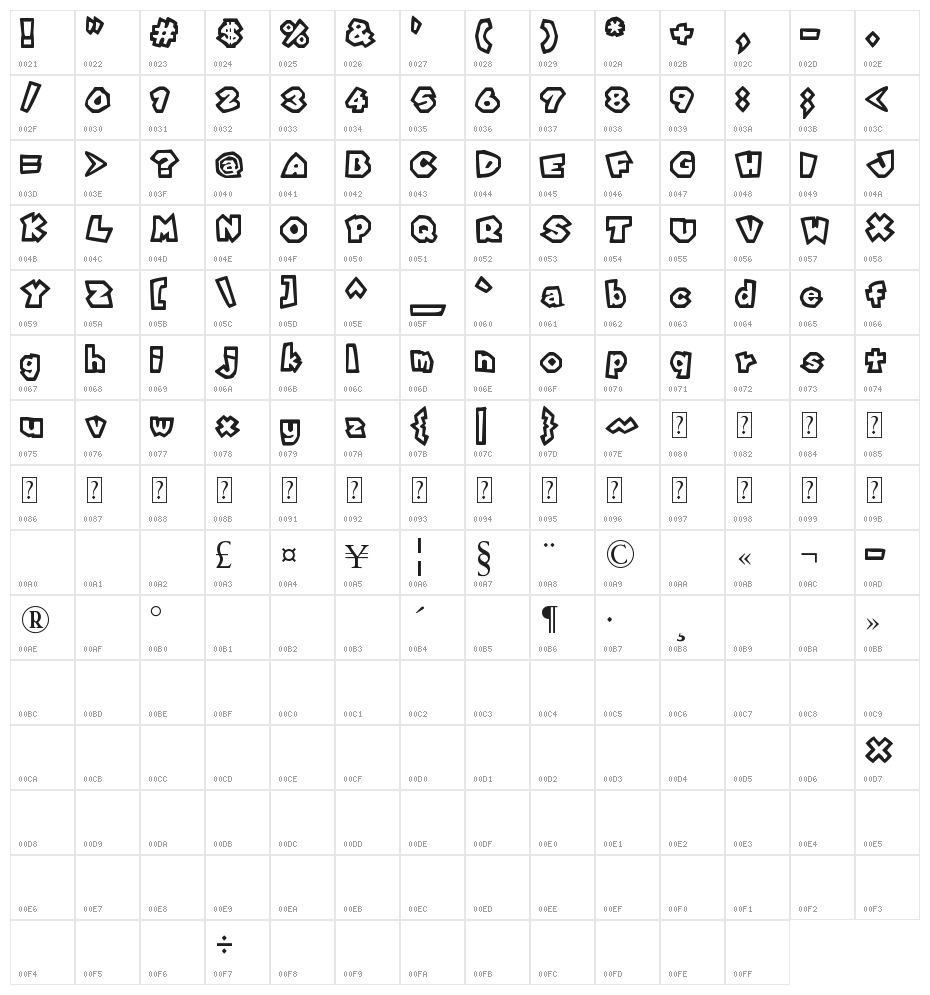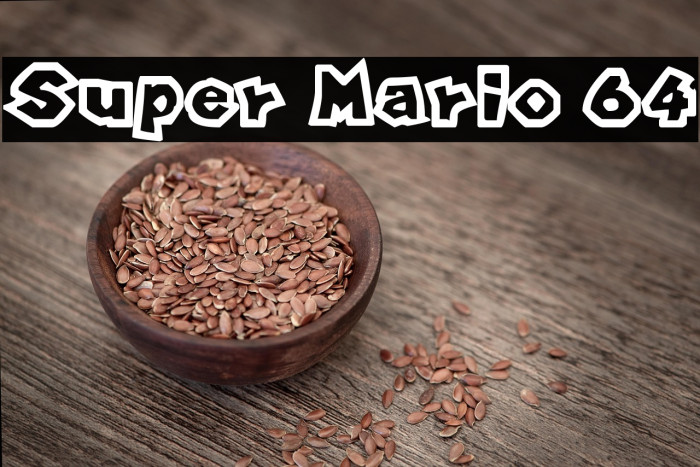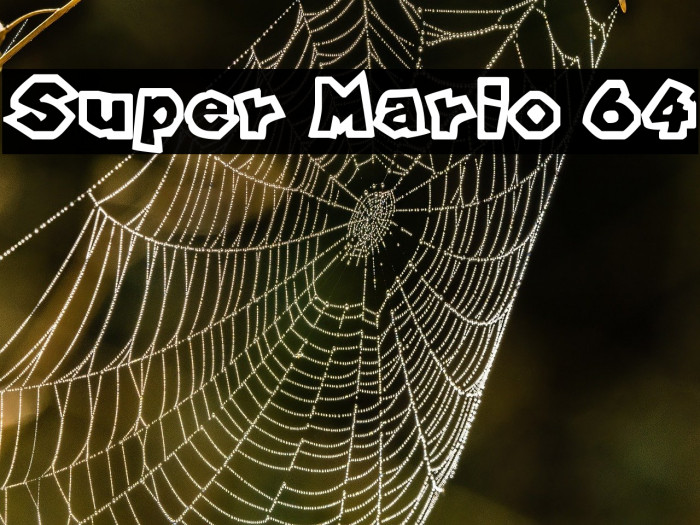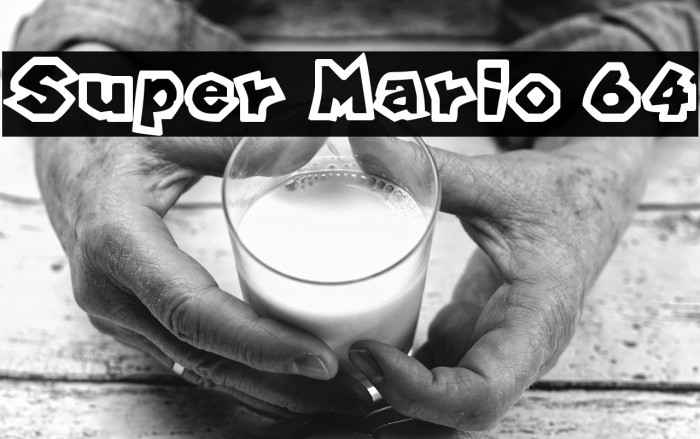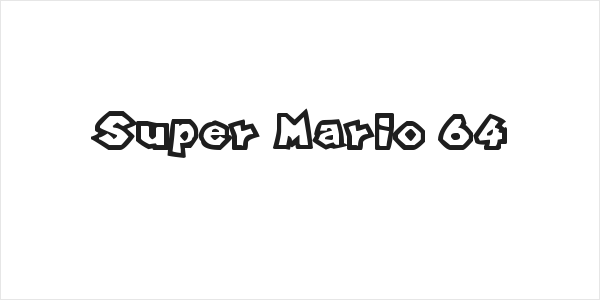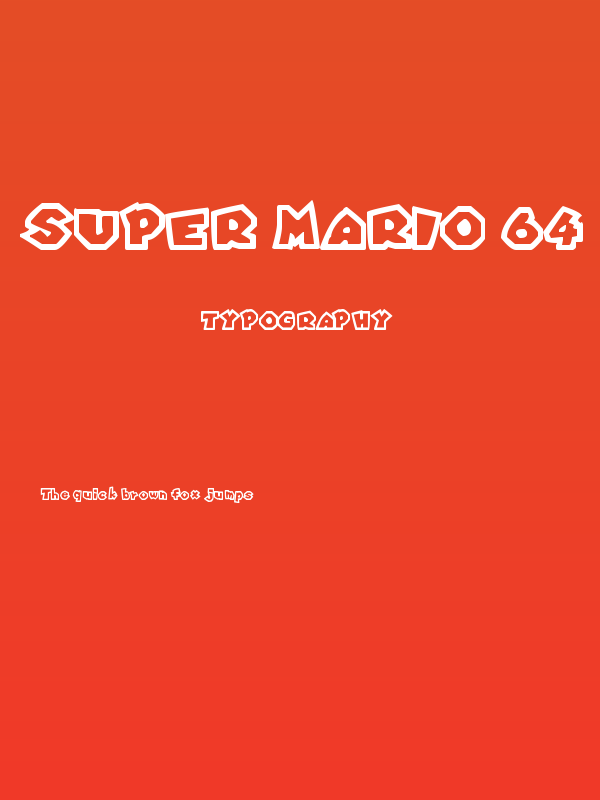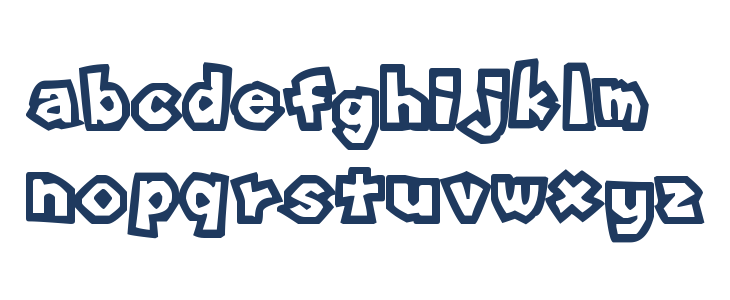
Super Mario 64 Font
Super Mario 64 Description
This font features a playful and bold design with a distinctly cartoonish style. The characters are outlined with a thick black border, giving them a three-dimensional appearance. Each letter and number is uniquely shaped, adding to the whimsical and fun aesthetic. The font is highly legible, with a consistent weight and width across all characters. Its exaggerated forms and dynamic angles make it ideal for capturing attention and conveying a sense of excitement and energy.
| Overall Style | Playful, Cartoonish |
| Proposed Projects | Ideal for video game graphics, children's book covers, playful branding, and any project requiring a fun, energetic typeface. |